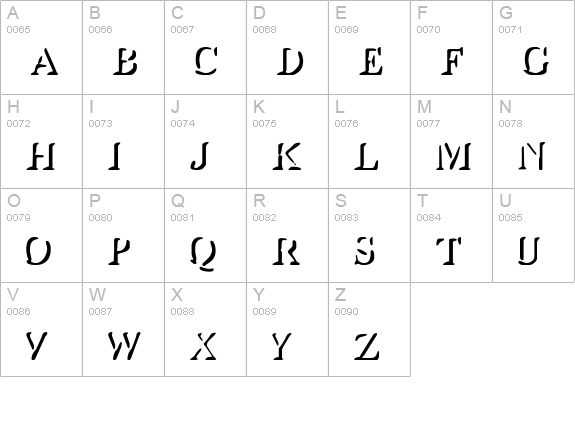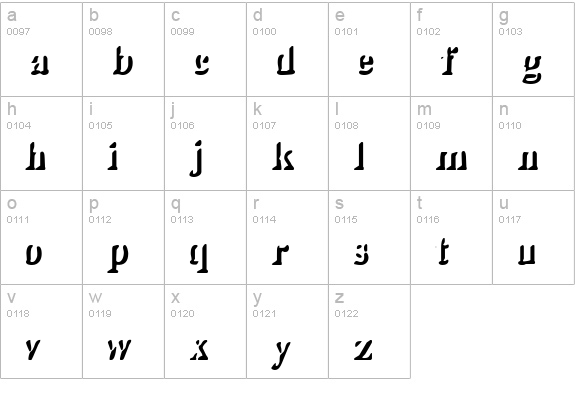
Shady Lady Font Details
Introducing the captivating and enigmatic Shady Lady font, a true embodiment of elegance and sophistication. This exquisite typeface effortlessly combines boldness with delicacy, making it perfect for a wide range of design projects. Shady Lady boasts a unique and alluring aesthetic, with its intricately crafted letterforms that exude confidence and allure. Each character is meticulously designed, showcasing a perfect balance between sharp edges and graceful curves, creating a harmonious visual experience. This font is the perfect choice for those seeking to make a lasting impression. Whether you are working on branding, packaging, invitations, or editorial designs, Shady Lady will elevate your creations to new heights of creativity and professionalism. One of the most remarkable aspects of Shady Lady font is its versatility. It effortlessly adapts to various design styles, from modern and minimalistic to vintage and retro, adding a touch of sophistication and refinement to any project. And the best part? Shady Lady font is available for free download at FontsMarket.com. Yes, you read that right! This stunning typeface can be freely accessed, allowing designers and creatives alike to unleash their imagination without any financial constraints. So why wait? Embrace the allure of Shady Lady font and let your designs shine with its undeniable charm. Download it for free at FontsMarket.com and discover the endless possibilities that await you.